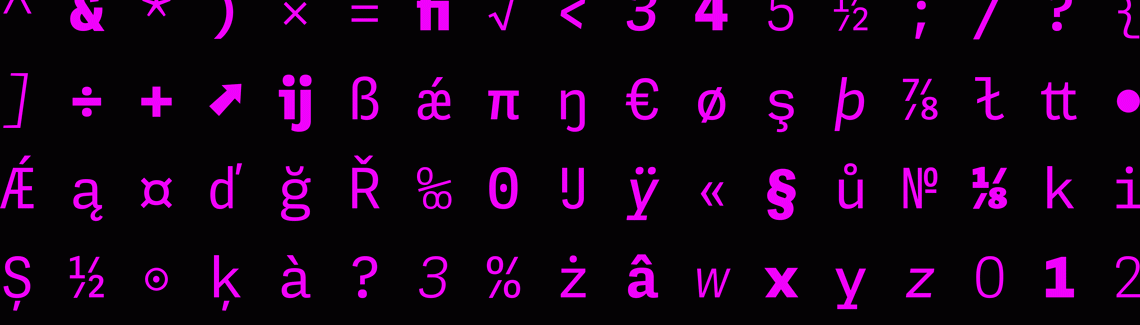
The Making of Adelle Mono & Mono Flex
Adelle Mono and Adelle Mono Flex find their origins in Veronika Burian’s keen observations about graphic design. First, that monospaced typefaces are used for their aesthetic qualities and in a range of applications that do not have the same limitations that birthed them; second, her type-designerly instinct to provide a better solution for that need. Pooja Saxena writes about this unique type family’s development.
Both images: Olympia SG3 typewriter with Devanagari script. Image courtesy of Contextual Alternate.
Monospaced typefaces are relics of the age of mechanical typewriters. [To discover more about the typewriter’s history, take a look at Dr Vaibhav Singh’s online tour of his vintage typewriter collection, exploring text and technology]. With a mechanical typewriter, when any key was pressed by the typist the carriage moved the paper the same, fixed distance. This meant that every character had to take up an equal width. While this was useful for the typist when they wanted to make tables or go back and make corrections, it also led to letters which should have different widths — the lowercase ‘m’ and ‘i’ for instance — being forced into the same horizontal space. These restrictions of mechanical typewriters created distinctive visual characteristics in monospaced typefaces.
Notice the almost square ‘E’, wide ‘Y’ and ‘J’, and condensed fractions (second row, right side). The capital letters are clearly sans serifs but the figures are serifs. Image: page 226 of Baltimore and Ohio employees magazine (1912), from University of Maryland, College Park.
Clearly seen here: all the glyphs occupy the same amount of space. In this case the script is Cyrillic, but the technical constraints are the same. Image: Olivetti Lettera 22 typewriter with Cyrillic script, courtesy of Contextual Alternate.
What makes monospaced typefaces unique
Monospaced typefaces live in a hybrid land, neither completely serif nor sans serif, with serifs being added or subtracted to meet the single-minded goal of fitting each letter in a fixed width. Wide characters, like the lower- and uppercase ‘M, W’, are routinely compressed horizontally and made serif-less. Narrow letters like the lowercase ‘i’ and ‘l’ tend to have wide bottom serifs that fill up the empty space around the letter.
Monospaced typefaces don’t enjoy typographic subtleties like kerning either. Kerning, which fine-tunes the spacing between two characters in a proportional typeface, is foreign to monospaced typefaces. The result often is a somewhat awkward but very recognisable texture. Add to this the ingenious solutions that designers create to accommodate wide characters like the at sign @, per cent %, per thousand ‰, and fractions, and what we have is a style of typefaces with a rather unique visual DNA.
Since all characters in monospace fonts occupy the same space, signs such as per cent and per mille require ingenious solutions and sensible compromises. Top left: LFT Etica; bottom left: LFT Etica Mono. Top right: Adelle Sans; bottom right: Adelle Mono.
This monospace DNA doesn’t mean much by itself, but the design community and the general public perceive strong, innate connections between the quirks of monospaced typefaces and the contexts in which they are used. This bestows upon them personality and qualities beyond mere function. We feel what we read.
Letter from 1927 produced on a typewriter. Notice the white space to add the quantity by hand, and the percentage signs in the bottom line.
Where monospace typefaces are used
The most obvious of these connections is between contemporary monospaced typefaces and the heyday of the mechanical typewriter. It reminds us of physical letters typed on typewriters and the analogue charm of typewriter art, made as much by the machine as it was by the resourcefulness and creativity of artists who worked with tools much less sophisticated than ours today.
Text in monospace typefaces still conjures the image of a manuscript in progress in stark contrast to professionally typeset, published work. Even those of us who have never touched a typewriter have inherited a fondness and nostalgia for this technology and its curious visual inheritance.
Monospaced typefaces have also come to signify their polar opposite — computing and the future, by way of developers and programmers who use them in their code editors and development environments. Many developers swear by them because of their exaggerated character designs which are easier to read in a non-text setting. Since development environments are typographically limiting, they depend heavily on indentations and spacing to make the code easier to read. In such a context, fixed-width typefaces help developers parse code faster and understand its structure. Expectedly, use of monospace typefaces extends beyond this functional necessity into graphic design that attempts to capture the spirit of computing.
Introducing Adelle Mono & Adelle Mono Flex
Adelle Mono Flex was developed specifically for use in situations where the aesthetic quality of monospaced typefaces is desired to evoke a feeling or personality, but where the severe limitations of typewriters (or even code editors) don’t exist. In other words, in text and design situations where reading is important, but the piece still needs the monospaced feeling.
The Adelle Mono family has five fixed widths for characters instead of one. This allowed us to more carefully adjust each character to fit within the width that was most suitable for it. Obviously, five widths is far less than the innumerable, perfectly-calibrated character widths of proportional typefaces, and herein lies the brilliance of this design. By giving ourselves just enough room to manoeuvre, we were able to retain the awkward charm of monospaced typefaces, but improve readability by creating a more even cadence to the black of letters and the white space between them.
From Mono to Mono Flex and back again, the variable font format allows infinite control along both the style spectrum and along the weight spectrum. But the file size can be as small as 10% what the original was — a major win for developers and users alike!